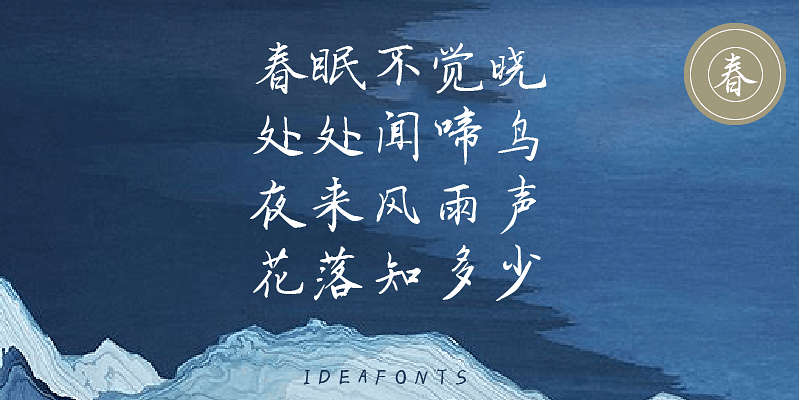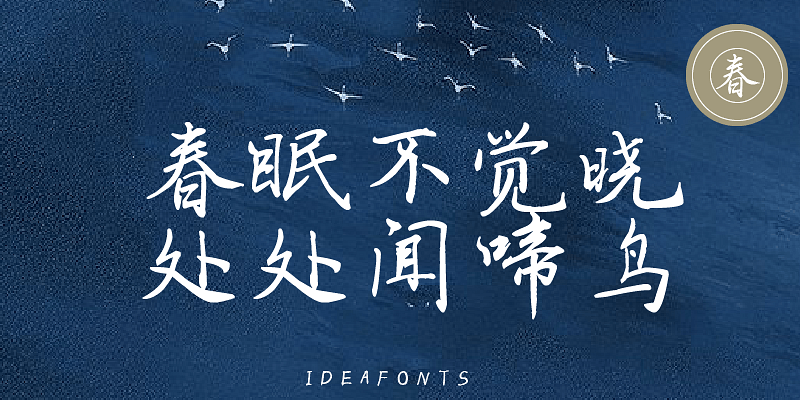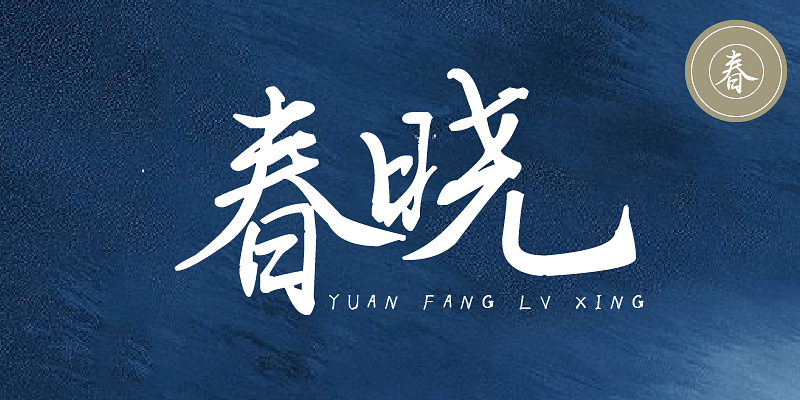
Spring is the season of hope and full of vitality. HelloFont ID ChunYiTi is a type of hand-written font fully reflects the charm of spring in the flow of strokes.